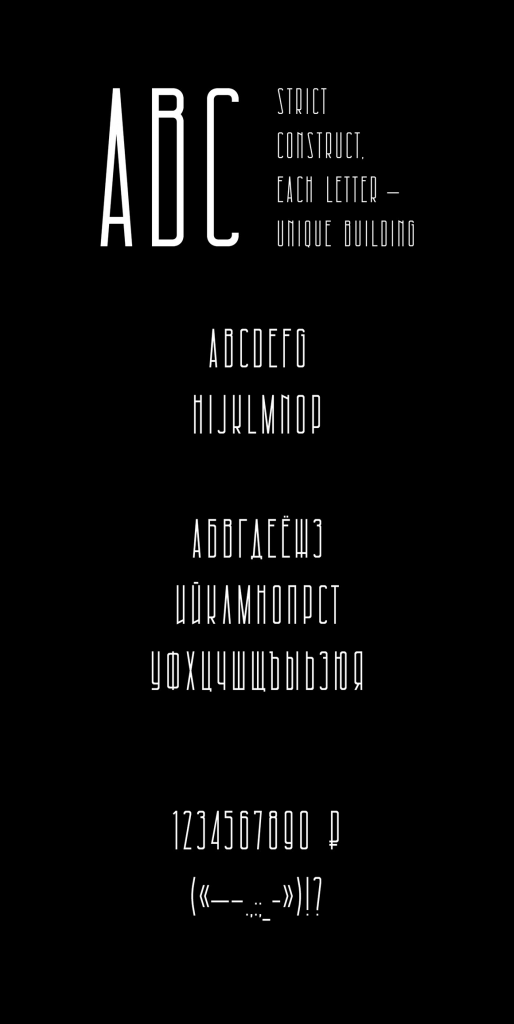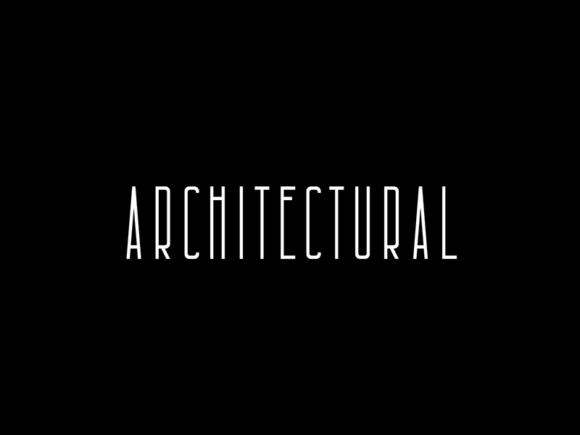
Architectural: Free Condensed Font
Architectural is a free font made by Igor Stepanchenko. This is a condensed and stylish typeface characterized by strict proportions and planned geometry. It’s a great choice for headings and small passages of text.
The font includes uppercase letters and numbers and provides cyrillic support.